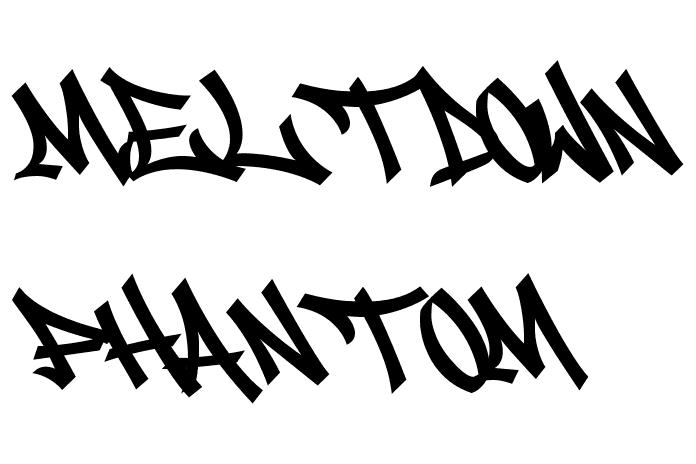
machinas Font
machinas Font is a Handwritten font in a beautiful, bold font, with characters dancing along the baseline. This font is made from a hand drawing with many scratches. Create your own design project with this font and illustrations to add more superb.
Font designer Gian Studio
Font Family Machinas Typeface
Typeface classification Handwritten,Script